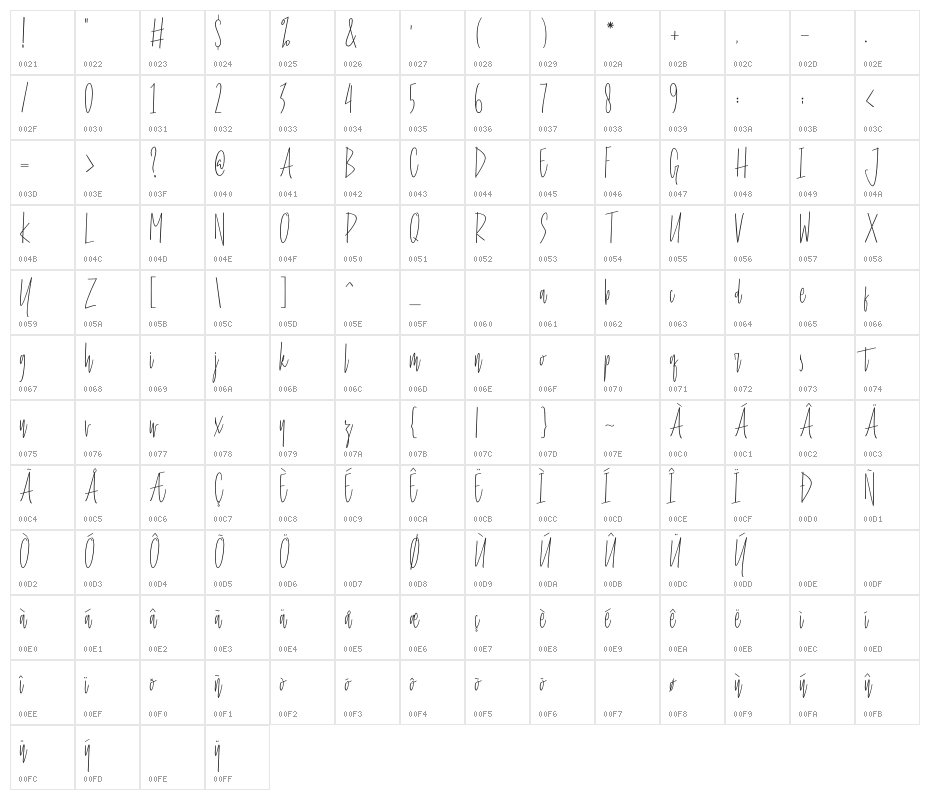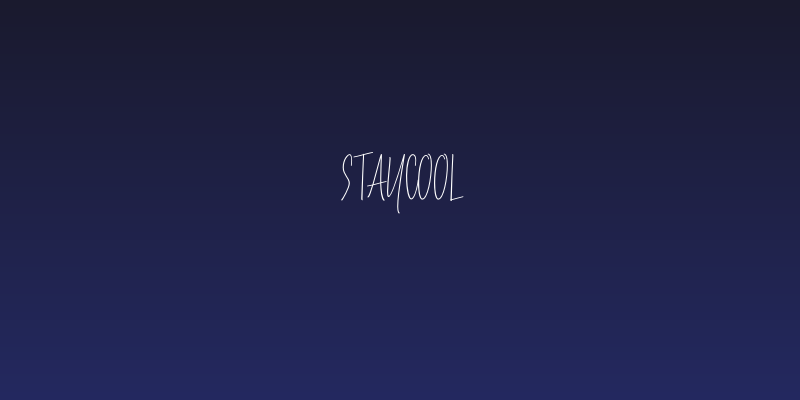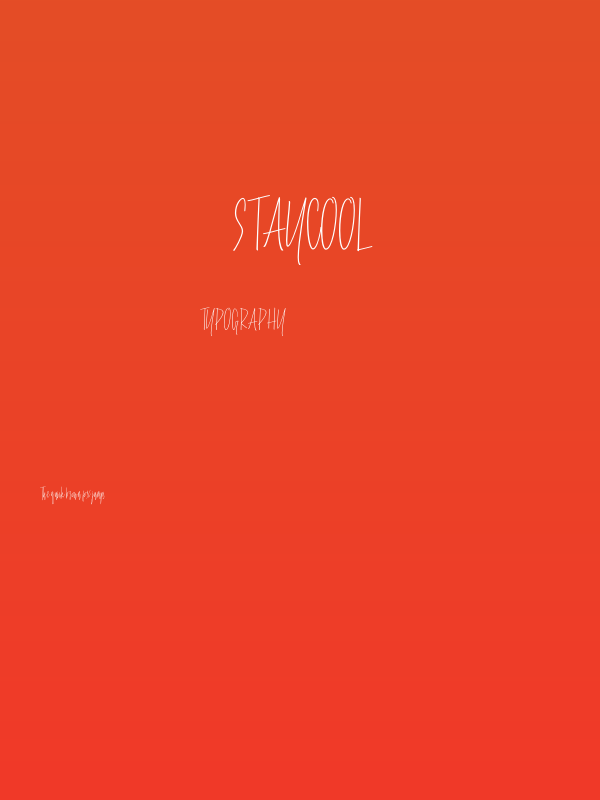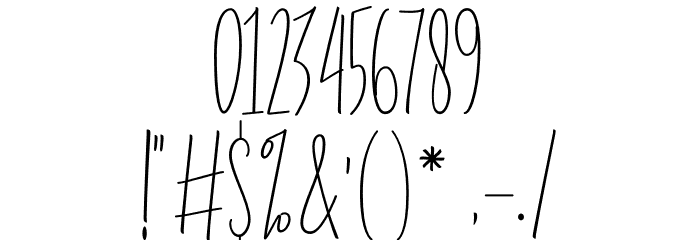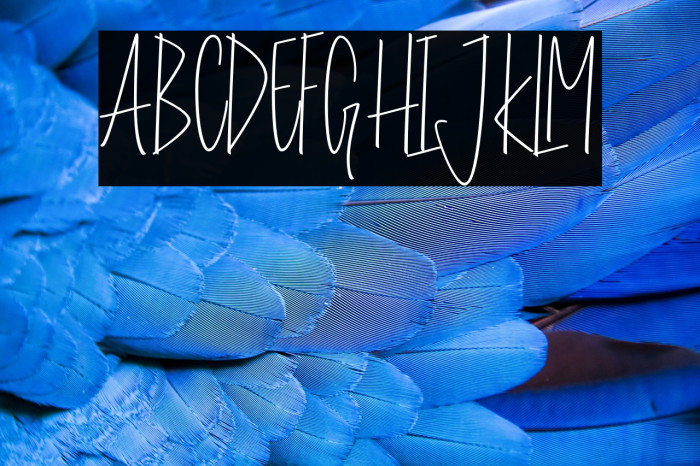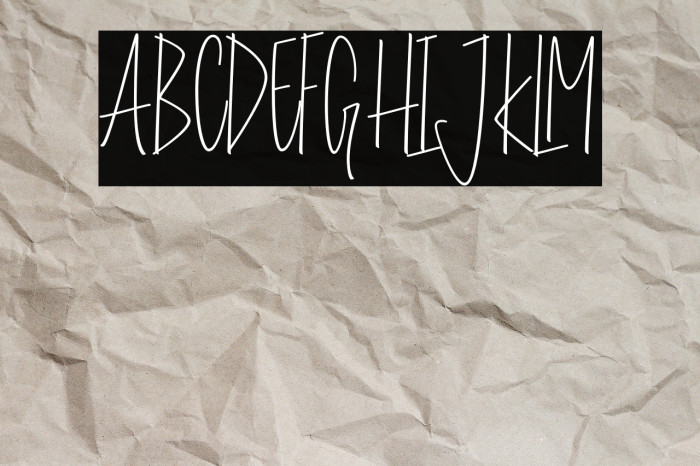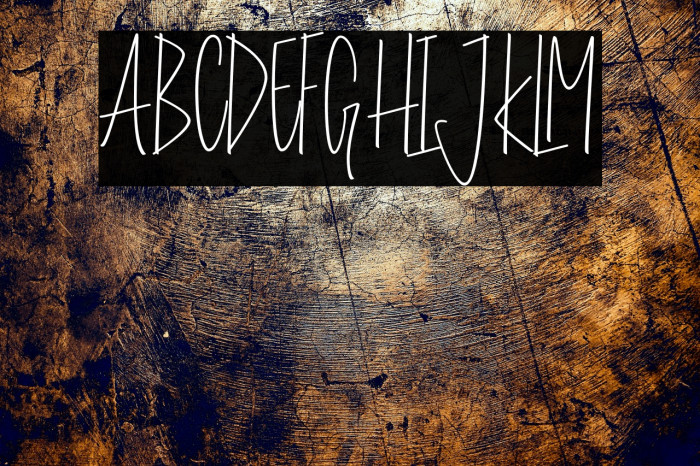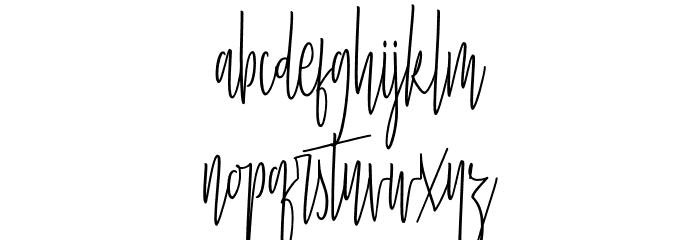
StayCool Font
StayCool Description
This font features a playful and casual handwritten style, characterized by tall, narrow letters with a slight slant. The strokes are thin and consistent, giving it a light and airy feel. The uppercase letters are elongated, while the lowercase letters maintain a more compact form. The numbers follow the same slender and tall design, ensuring uniformity across all characters. Special characters are integrated seamlessly, maintaining the font's overall whimsical and informal aesthetic. This font is ideal for projects that require a personal touch or a relaxed vibe.